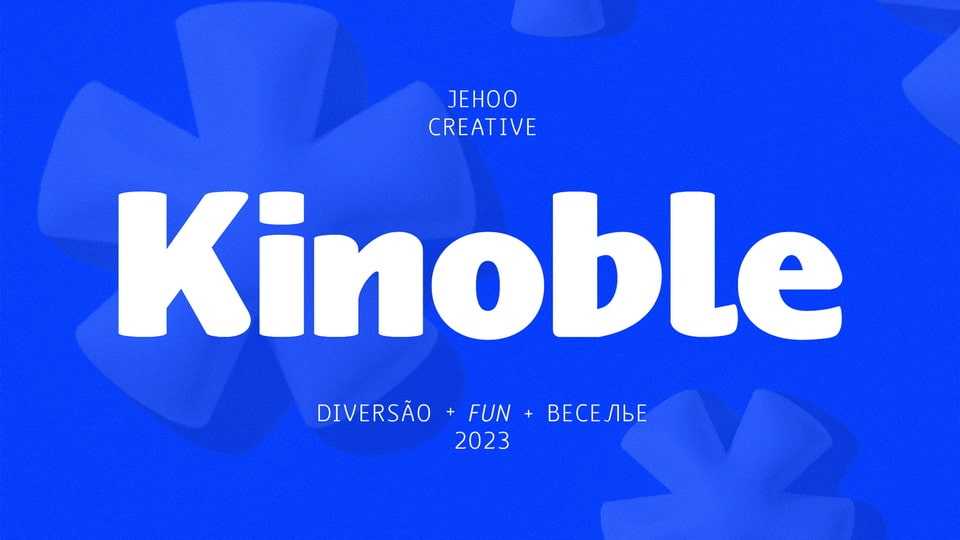
Download Kinoble font, a typeface that combines the clean look of sans-serif with a touch of handwriting for a natural feel. Whether you need it for titles, logos, or any kind of display text, Kinoble font adds a modern twist while staying easy to read.
Designer: Jehoo Creative